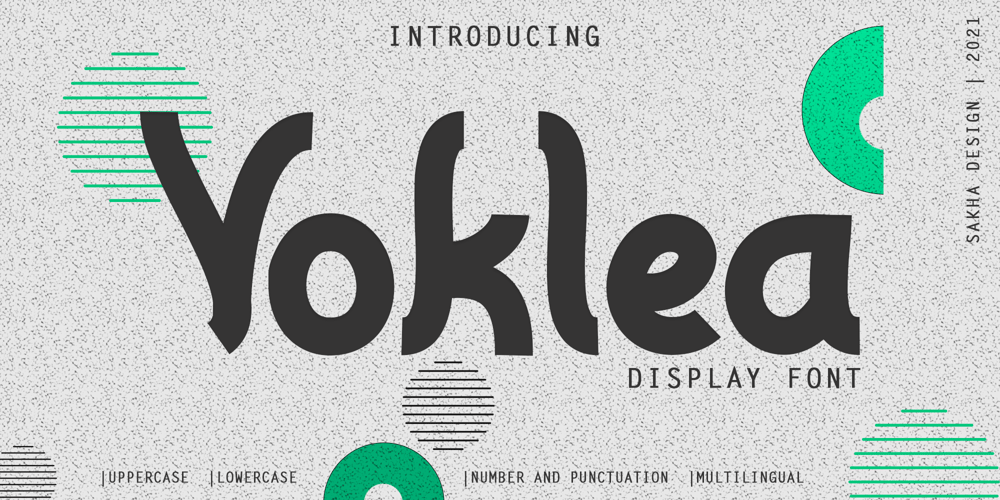
Voklea Font Family was designed by Alif Ryan Zulfikar and published by Sakha Design. Voklea contains 2 styles and family package options. Voklea is a cool, bold and trendy looking display font. Whatever the topic, this font will be a wonderful asset to your font library, as it has the potential to enhance any creation.